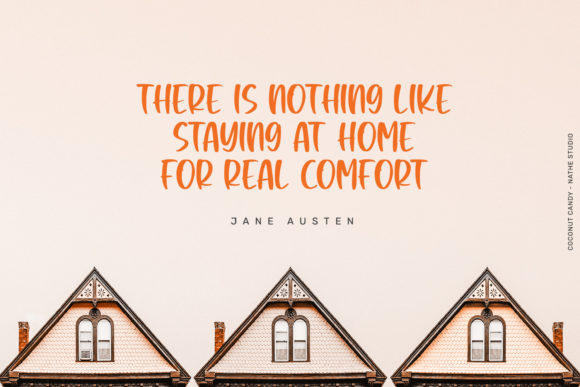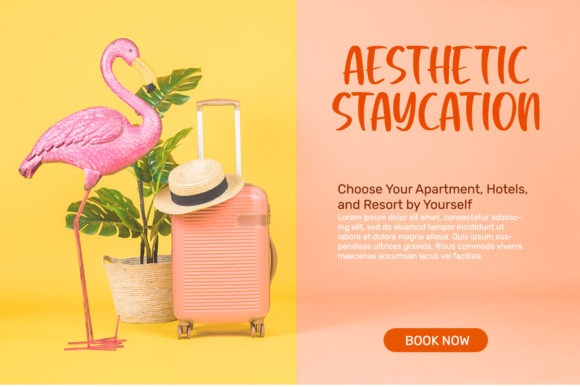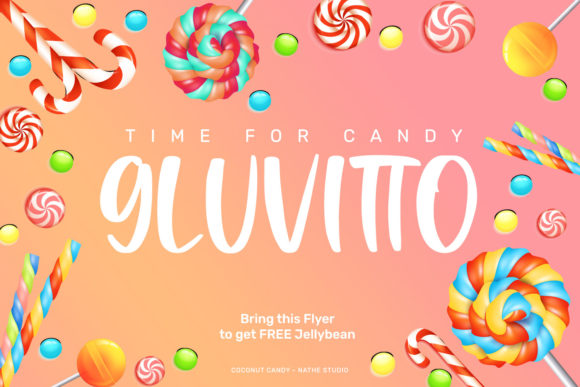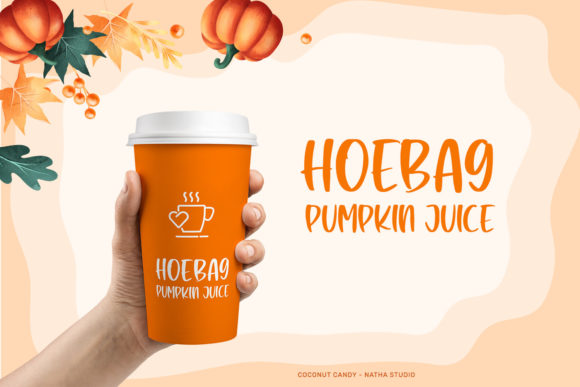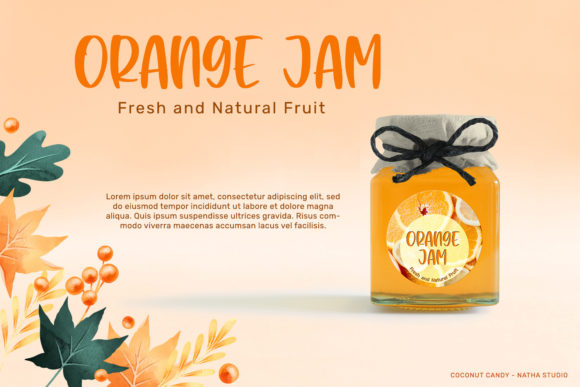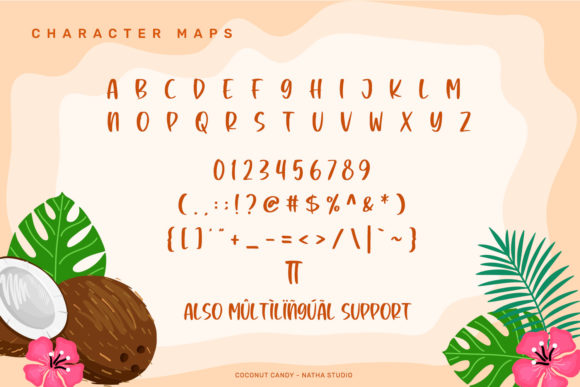
Discover the Sweet Taste of Creativity with Coconut Candy Font
You know that moment when a spark of creativity hits you, and you just can’t wait to bring your idea to life? That’s exactly what happened when I stumbled upon the Coconut Candy Font. Its unique and playful design immediately caught my attention, and I knew I had to share it with fellow designers and creatives.
Coconut Candy Font is a casual and friendly handwritten font, perfect for adding a touch of personality to your designs. Whether you’re working on a brand identity, a marketing campaign, or a personal project, this font is sure to bring a smile to your audience’s face. Its natural and unique style makes it incredibly versatile, allowing you to experiment with different designs and ideas.
Coconut Candy Font Key Features
- Font Family: A unique, hand-drawn font designed to evoke a tropical feel, perfect for food, beverage, or travel-related branding.
- Character Set: Includes a comprehensive set of characters, including uppercase and lowercase letters, numbers, punctuation marks, and special characters, ensuring versatility and readability.
- Unique Characteristics: Features a distinctive, whimsical design with intricate details and subtle texture, adding a touch of personality to any design project.
Designer Review: Coconut Candy Font
Overall, I’d say the Coconut Candy Font is a fun, playful typeface that’s perfect for adding a touch of whimsy to your designs. Here are a few things that work well:
- ✨ The font’s organic feel is reminiscent of handwritten notes or tropical getaways, which makes it great for projects that need a carefree vibe.
- ✨ The font’s high contrast between thick and thin strokes creates visual interest and makes it easy to read at various sizes.
- ✨ The font’s custom characters and swashes add a unique touch to your designs and help differentiate them from more generic fonts.
- ⚠️ The font’s irregularity can sometimes make it difficult to use in situations where consistency is key (e.g., body text, headers, or other areas where uniformity is important).
- ⚠️ Some of the font’s custom characters may not display correctly in certain contexts or software.
Overall, I think the Coconut Candy Font is a great choice for projects that need a touch of personality and flair. While it may not be suitable for all design applications, it’s a fantastic option for designers who want to add a bit of fun and whimsy to their work.
Tips for Getting the Most Out of Coconut Candy Font
Use Coconut Candy Font for whimsical and playful designs, such as children’s party invitations, food labels, or social media graphics.
Combine Coconut Candy Font with bright colors and bold graphics to create eye-catching designs.
Experiment with different font sizes and styles to add visual interest to your designs.
Coconut Candy Font is perfect for:
Children’s party invitations and decorations
Food labels and packaging
Social media graphics and advertising
Wedding invitations and decorations